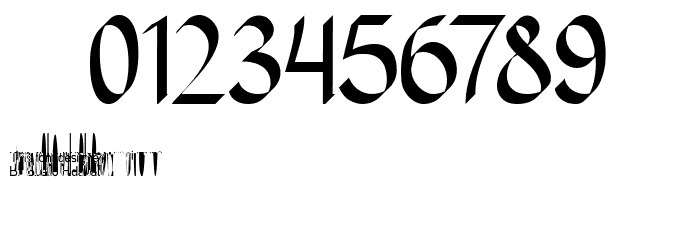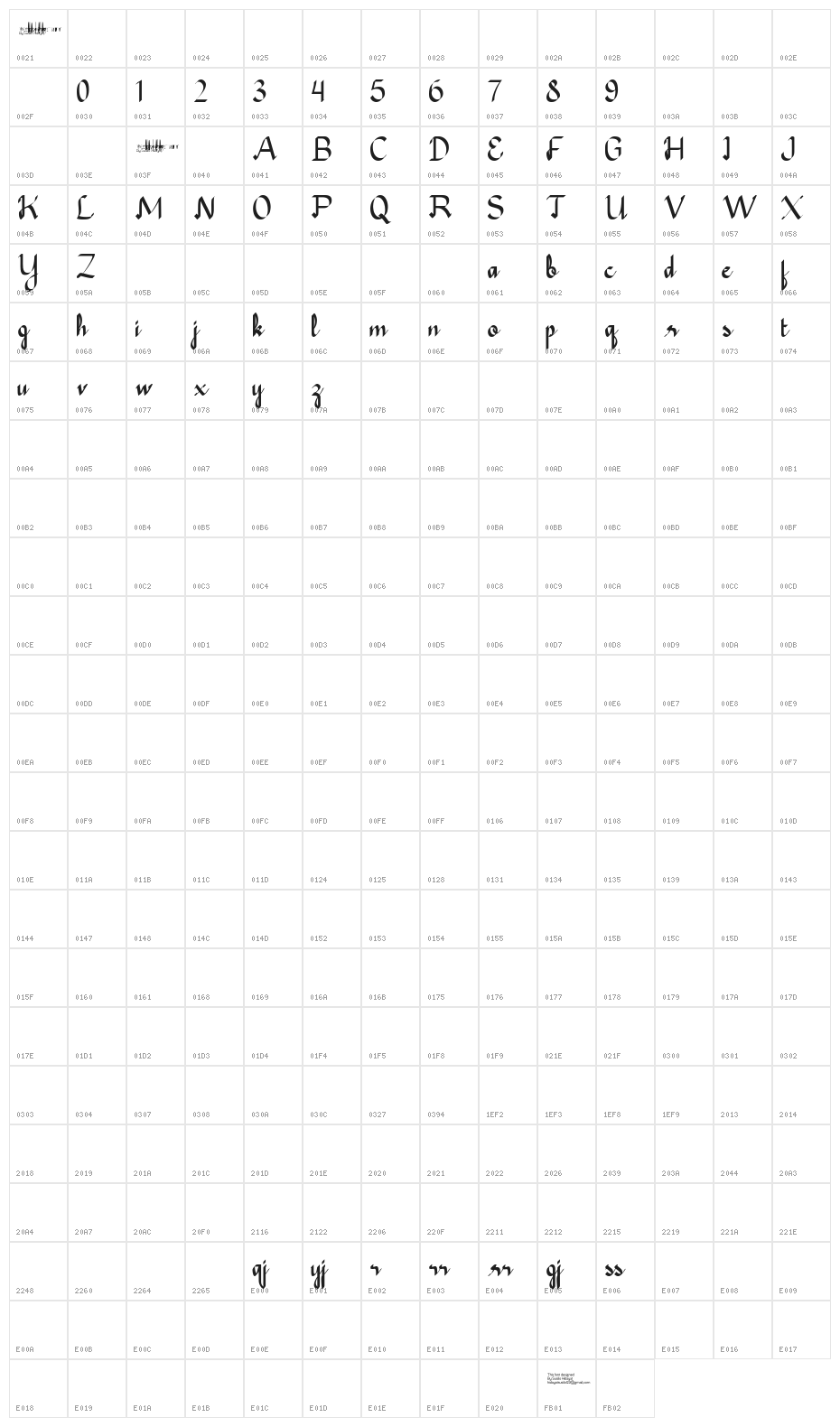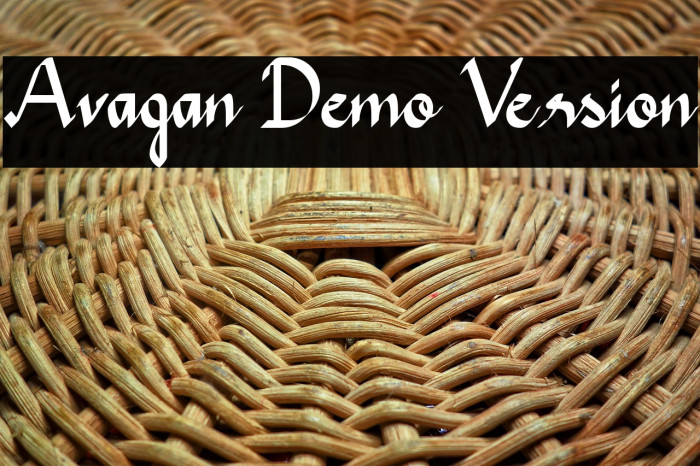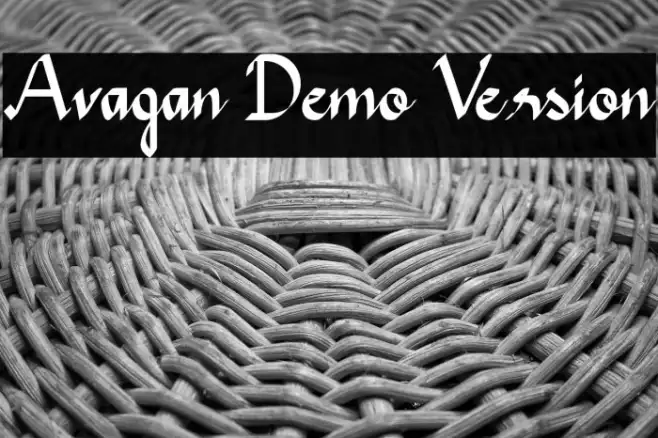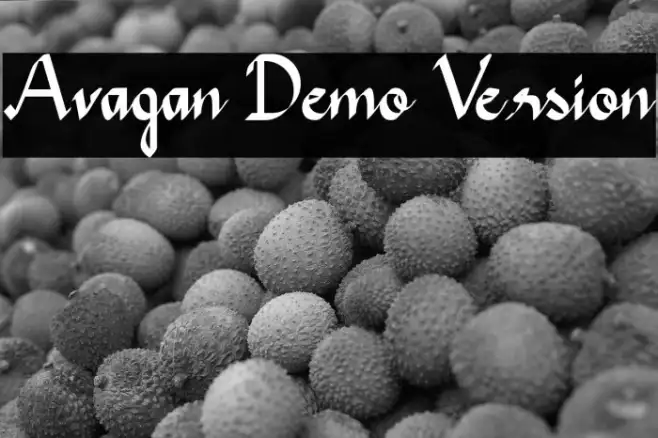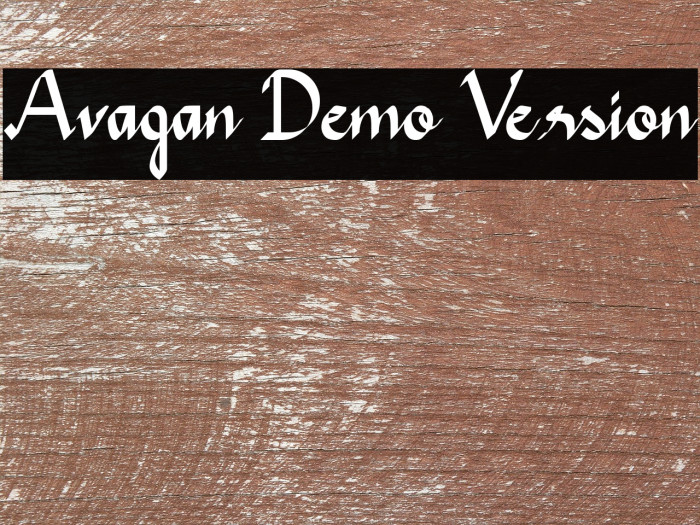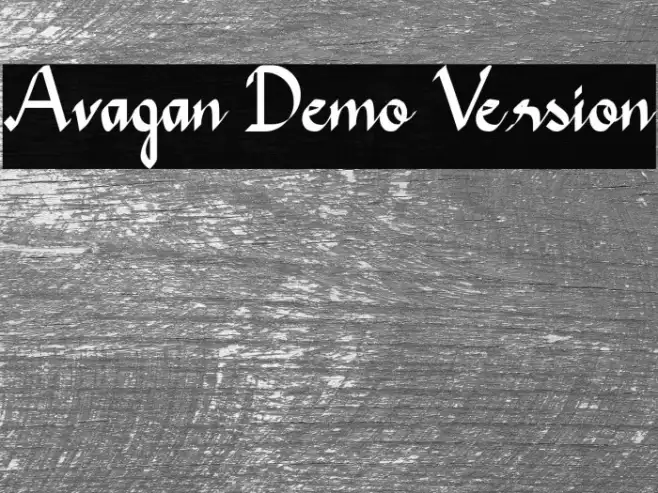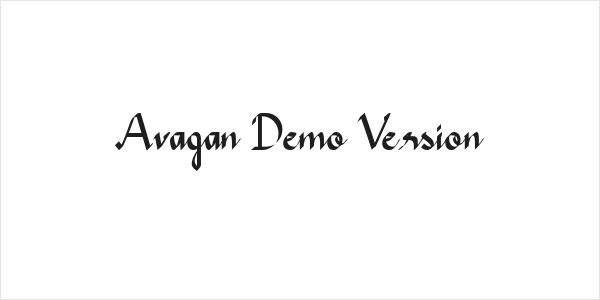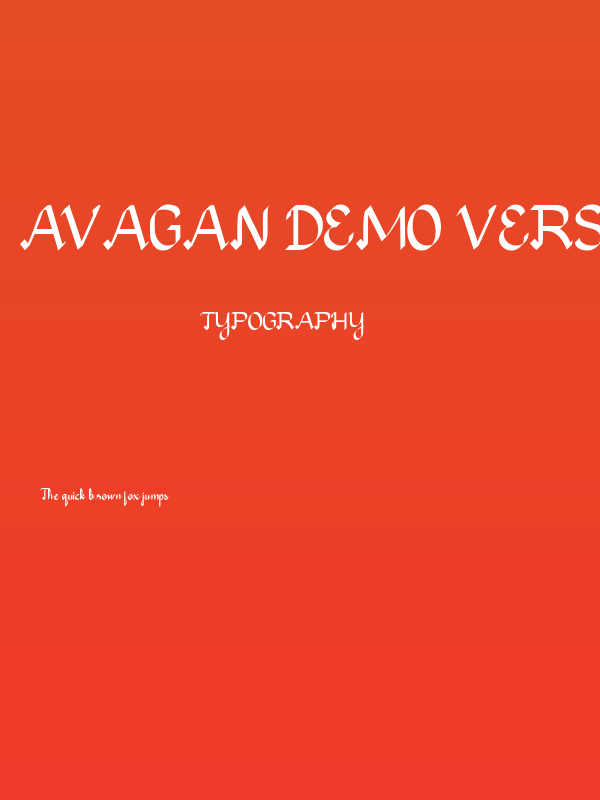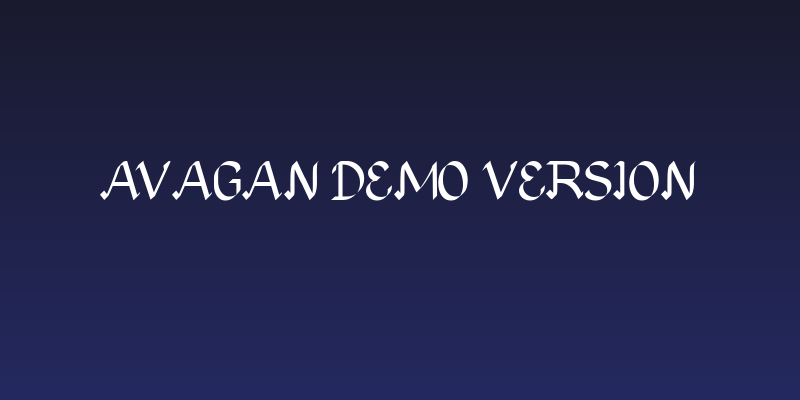
Avagan Demo Version Font
Avagan Demo Version Description
This font features a unique blend of modern and classic elements, characterized by its sharp, angular strokes and elegant curves. The uppercase letters exhibit a strong presence with their bold, geometric forms, while the lowercase letters maintain a fluid, script-like appearance. The numerals are distinct and easily readable, complementing the overall style. Special characters are crafted with the same attention to detail, ensuring consistency across all glyphs. This font's design is both sophisticated and versatile, making it suitable for a variety of applications.
| Use Case | Logos, Headlines |
| Proposed Projects | Ideal for branding, logo design, headlines, and editorial layouts. |